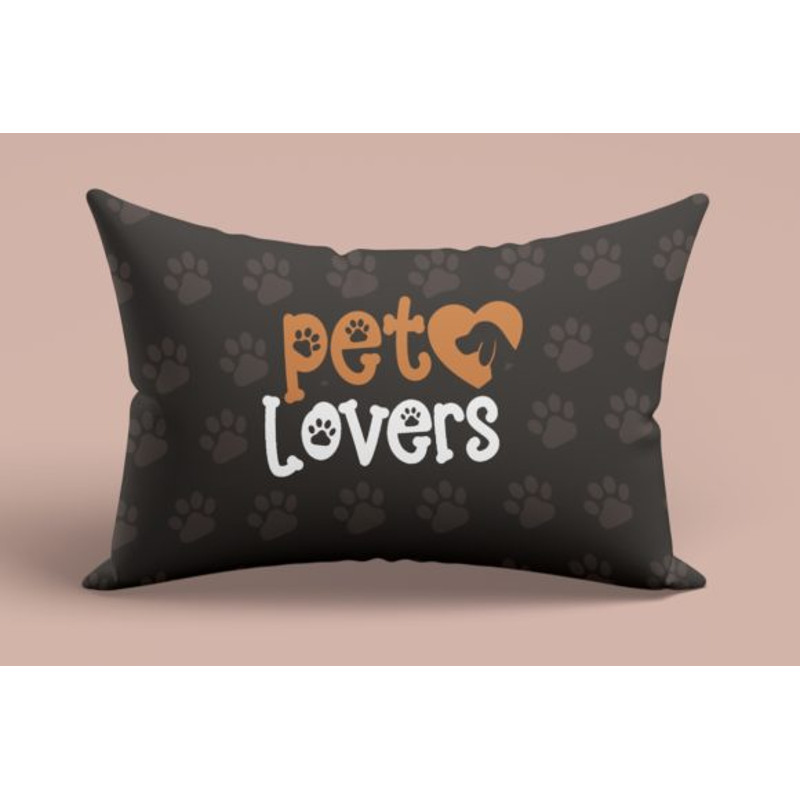
Paw Wow Font
Paw Wow is an amazing and cute display font. It features gorgeous dog cliparts and it’s the perfect choice for dog-themed crafting projects.